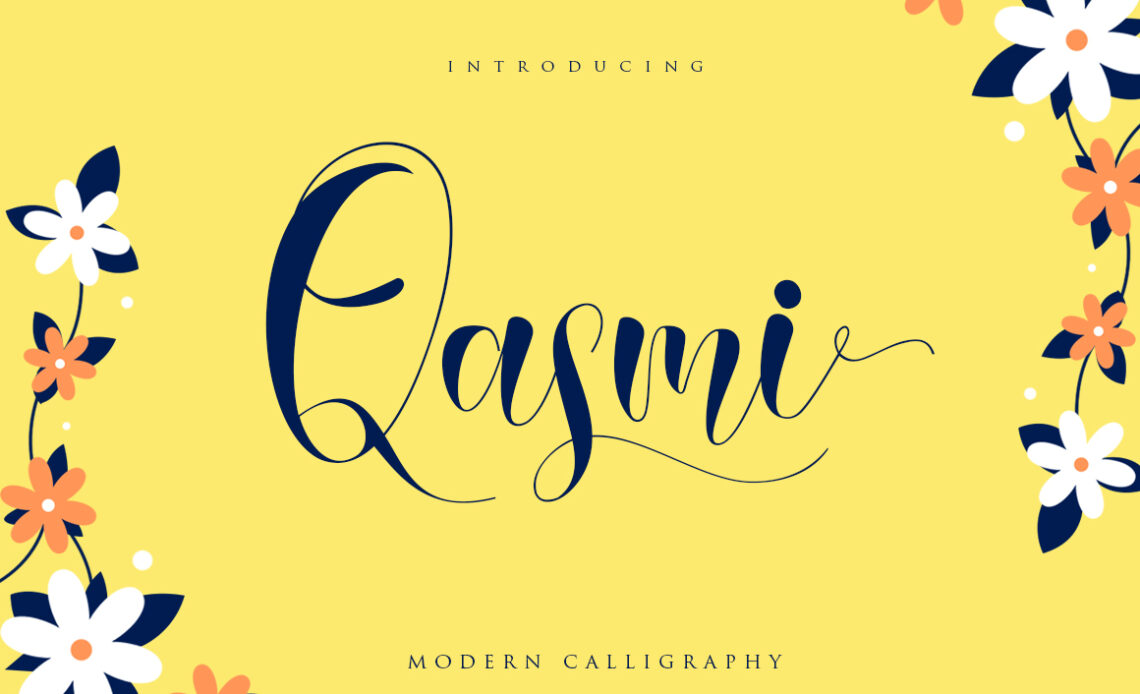
Qasmi Script Font
Step into the realm of script fonts and let Qasmi Script Font ignite your imagination. A creation of Khurasan, this elegant and enchanting script carries the essence of modern calligraphy, effortlessly capturing the essence of the handwritten word.
Qasmi is not just a font; it's a timeless treasure that adds a touch of classic beauty to your designs. With its delicate strokes and graceful curves, it gracefully weaves its way into any project, adding a touch of effortless sophistication.
Whether you're crafting stunning invitations, creating captivating logos, or designing enchanting social media posts, Qasmi Script Font is your muse. It's the perfect companion for handwritten notes that evoke a sense of intimacy, or for headlines that demand attention.
Qasmi is more than just a font; it's an expression of your creativity. A symphony of strokes that paint a picture, a melody of curves that resonates with emotion. It's the font that transforms ordinary words into extraordinary art.
With Qasmi, your designs will transcend the ordinary, leaving an enduring impression that whispers of timeless beauty and heartfelt emotion.